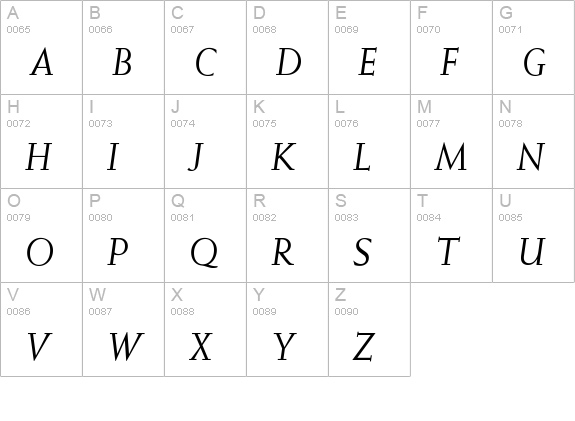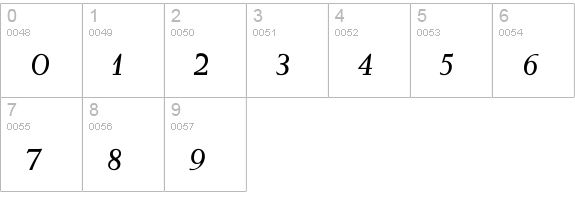
WeissAntiquaEF-RegularIta Font Details
WeissAntiquaEF-RegularIta is a stunningly elegant font that exudes timeless beauty and sophistication. With its delicate curves and graceful letterforms, this typography masterpiece is perfect for adding a touch of classic charm to any design project. Designed with meticulous attention to detail, WeissAntiquaEF-RegularIta captures the essence of traditional calligraphy while incorporating modern elements. Its flowing italic style effortlessly combines legibility with a graceful flair, making it a versatile choice for both body text and decorative accents. This font's versatility is further enhanced by its extensive character set, which includes a wide range of ligatures, alternates, and swashes. These additional glyphs allow designers to create unique and personalized typographic compositions, adding an extra layer of creativity to their work. What sets WeissAntiquaEF-RegularIta apart is not only its exceptional design but also the fact that it is available for free download at FontsMarket.com. This means that designers and enthusiasts alike can easily access this exquisite font without any hassle or cost. Whether you're working on an elegant wedding invitation, a sophisticated branding project, or simply want to add a touch of refinement to your designs, WeissAntiquaEF-RegularIta is the perfect choice. Its timeless beauty and freely available download make it a must-have in your font collection.